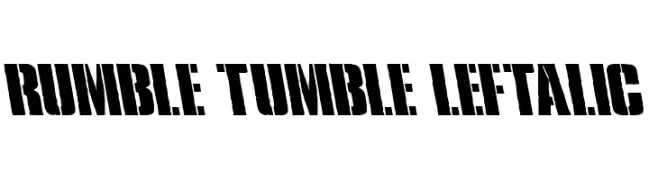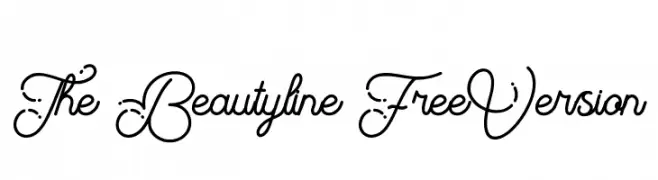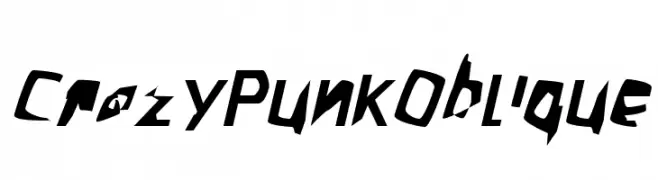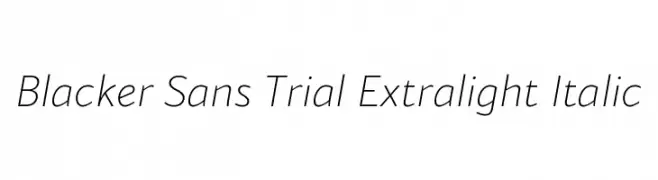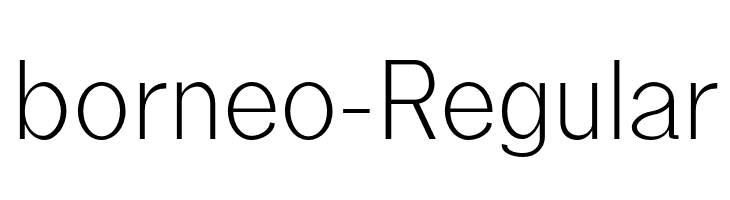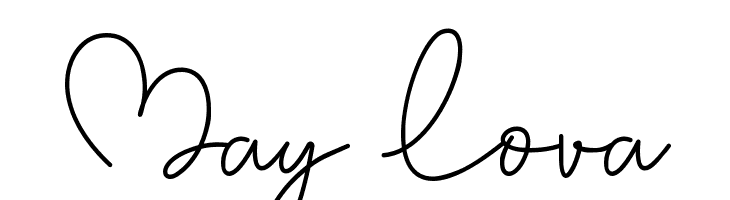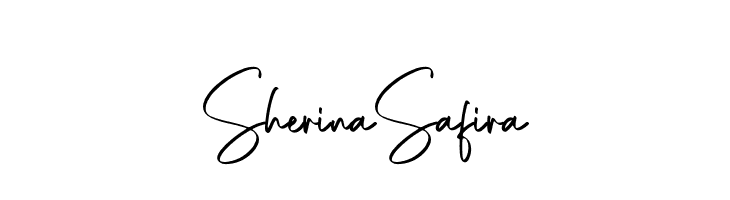
A distressed, grunge-style font with bold, textured characters.
A bold, distressed font with a rugged, stencil-like appearance.
A decorative script font with elegant swirls and loops.
A bold, artistic font with expressive strokes and a playful, rebellious style.
A bold, angular font with a rebellious, dynamic style.
A bold, dynamic font with a playful, slightly curved design.
A bold, playful script font with a handwritten feel.
A clean, modern, semi-condensed font with an extra light weight, ideal for UI design.
A sleek, modern font with thin strokes and a slight slant for a dynamic look.
A bold, cursive font with elegant, flowing script.